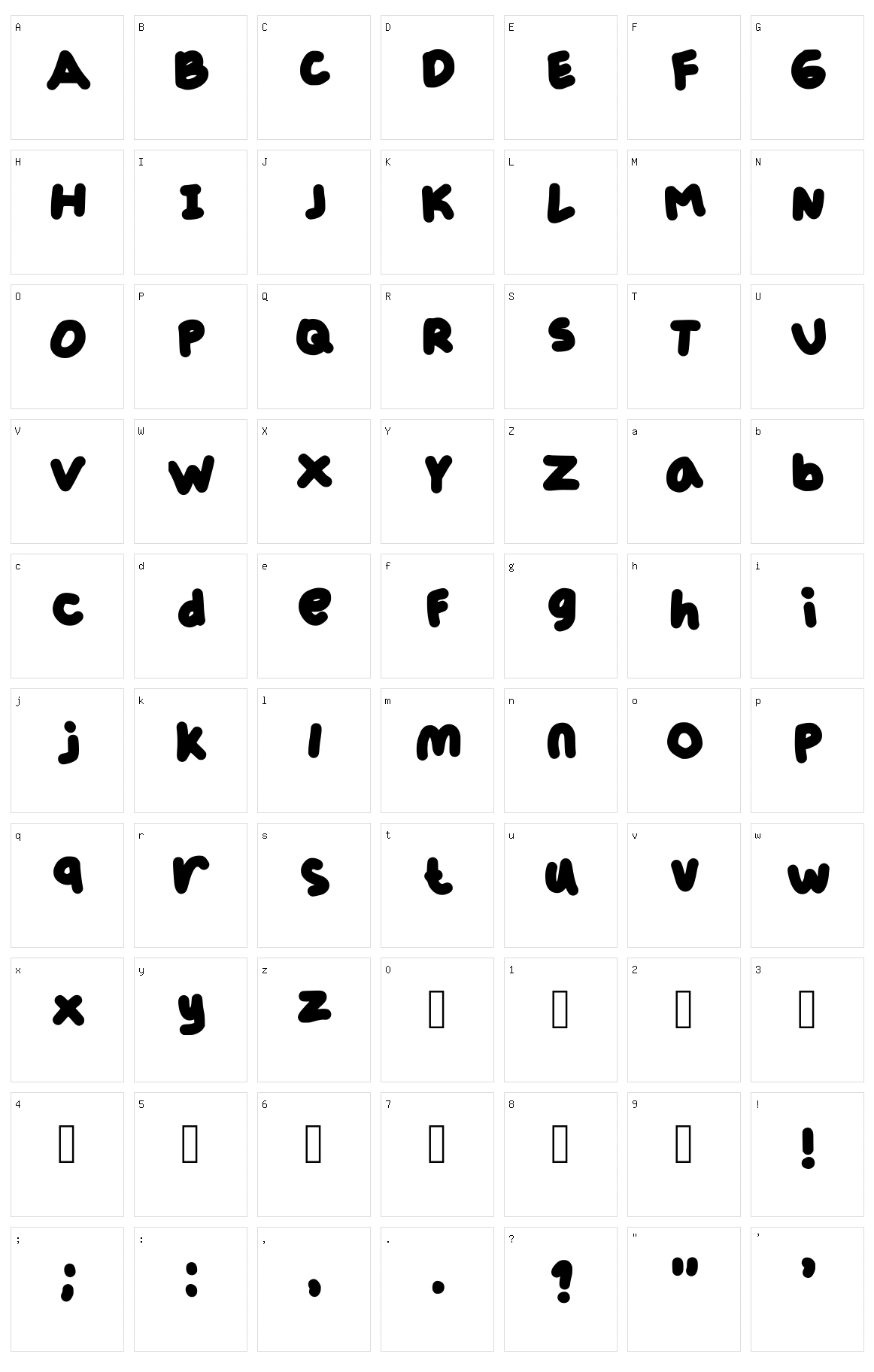
The free font Lullabiest is carefully designed by httpsgoths, showcasing a thoughtful balance of creativity and usability and falls under the Script font style. When you download the ZIP file, it contains only 8.09 KB of font files, making it lightweight and quick to download. Please review the license details below to understand permitted usage and distribution rights. If license information is not available, we recommend using this font for personal projects only or contacting the author directly for commercial usage permissions.